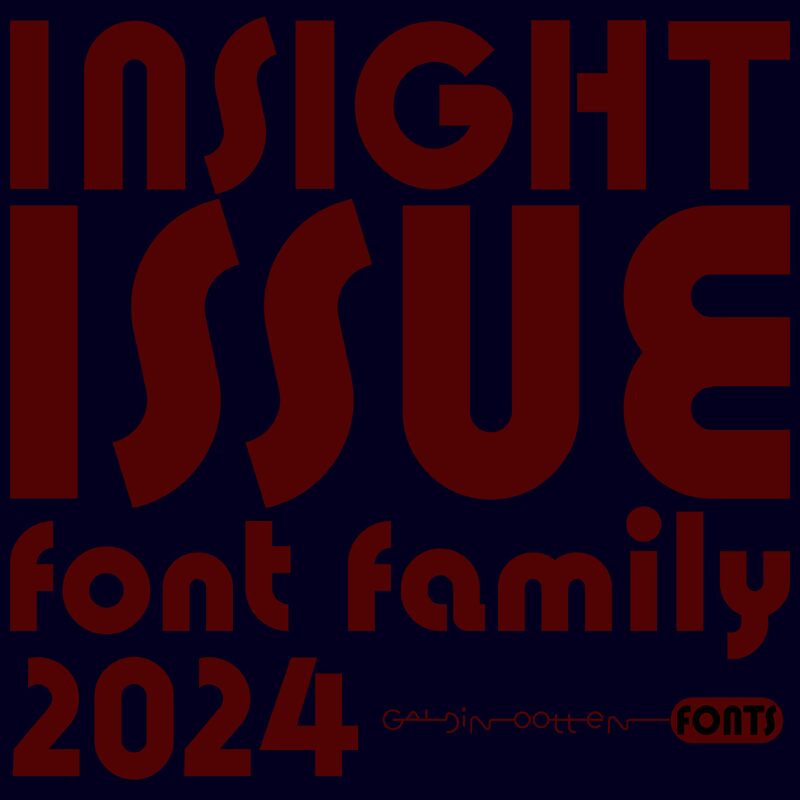
Insight Issue font from Galdino Otten Fonts features clean lines and a geometric design that is simple and elegant. The modernist styling of this free display font ensures its legibility and eye-catching aesthetic, which makes it an exceptional option for designers. The rounded curves on many of the characters add to its contemporary appeal.
Ideal usage includes posters, business cards, websites, brochures, packaging designs, book covers, and magazines. Furthermore, the condensed structure adds a fresh appearance to newspapers or any other printed publication. Insight Issue deserves a try on apparel branding projects such as T-shirts or even design mockups!